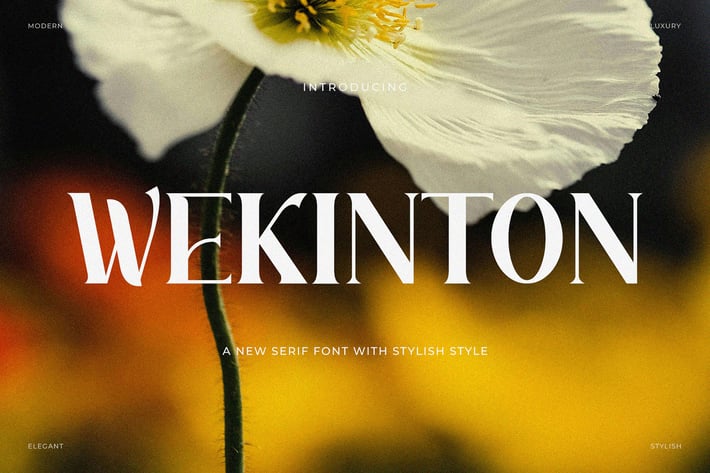
Wekinton - Stylish Serif Font
Introducing Wekinton - Stylish Serif Font.
Wekinton is a classy and stylish font, best used as a display for headings, logos, branding, magazines, product packaging and invitations.